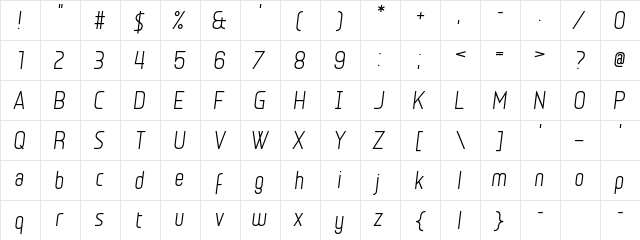
Egosurf Regular
| Designer | Allison James |
Design Context for Egosurf Typeface
Egosurf offers clean, dependable letterforms without strong stylistic allegiance, making it a practical choice for designers who need flexibility.